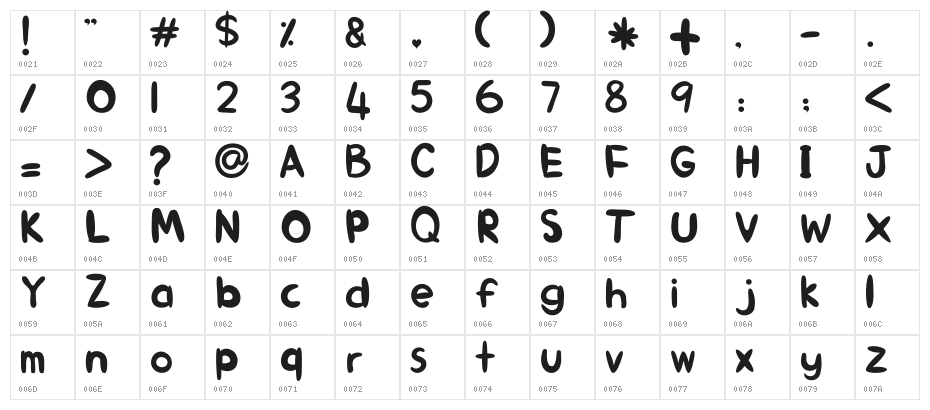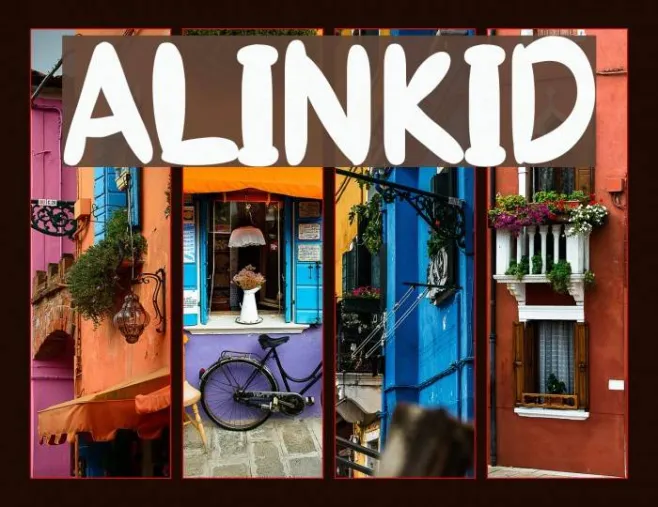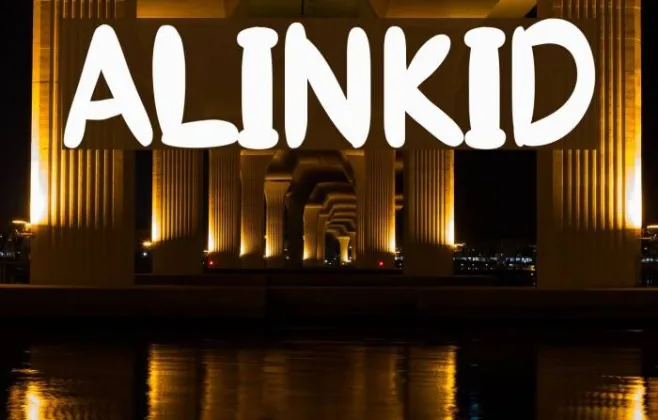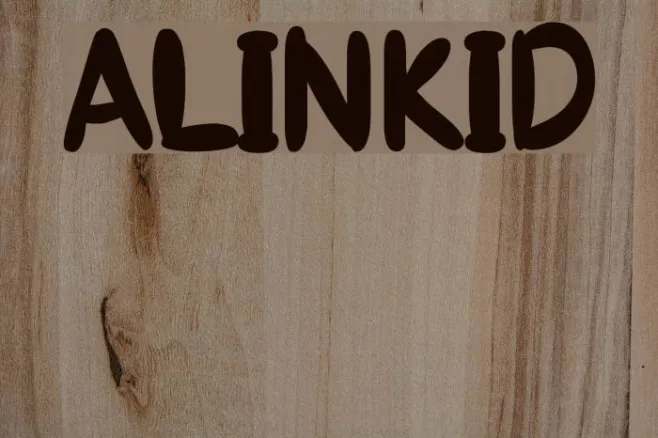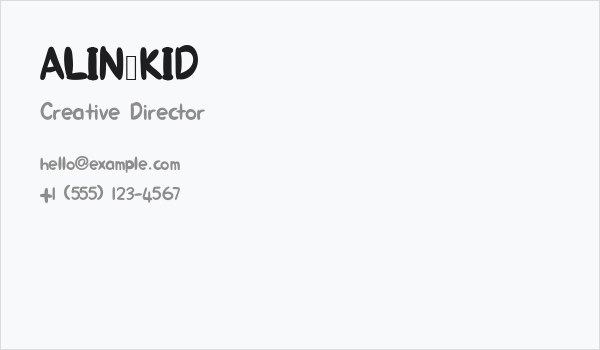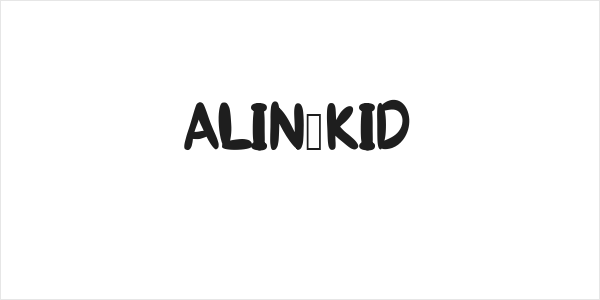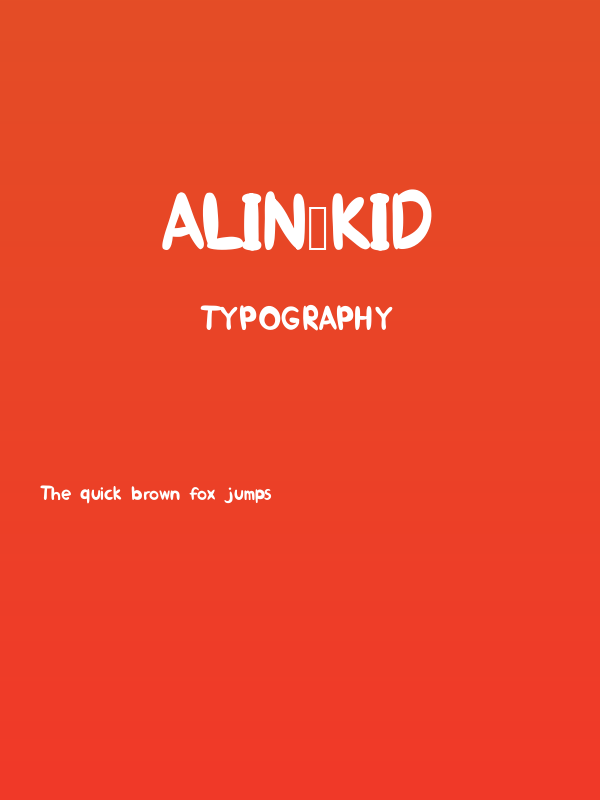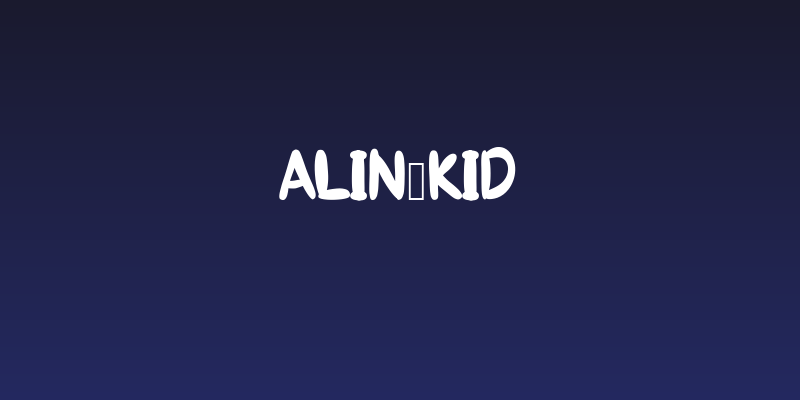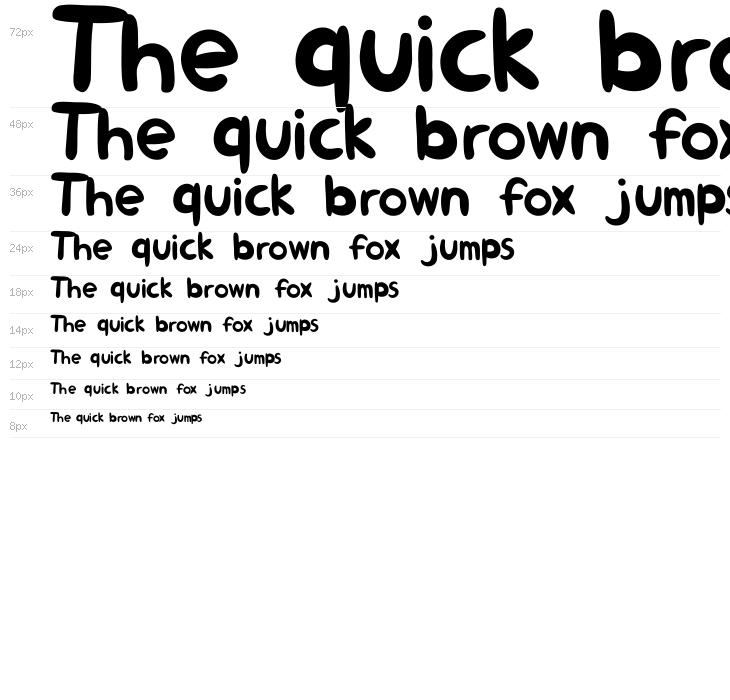
ALIN_KID Font
ALIN_KID Description
This playful and bold font features rounded, bubbly characters that exude a sense of fun and creativity. The letters are thick and slightly irregular, giving them a hand-drawn appearance that is both approachable and lively. The uppercase and lowercase letters maintain a consistent style, with smooth curves and a friendly demeanor. Numbers and special characters are equally bold and rounded, ensuring a cohesive look across all text elements. This font's unique style makes it ideal for projects that require a touch of whimsy and personality.